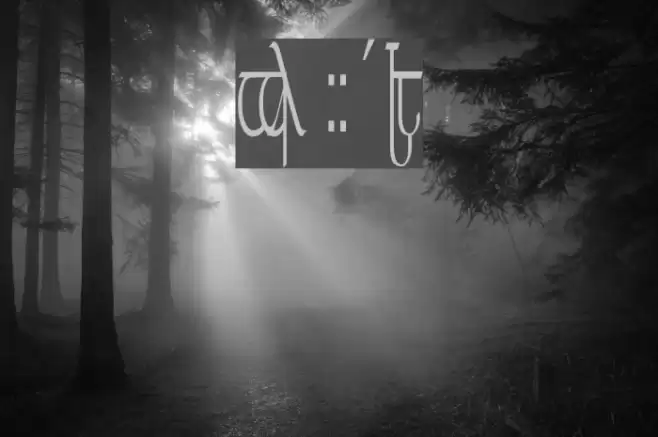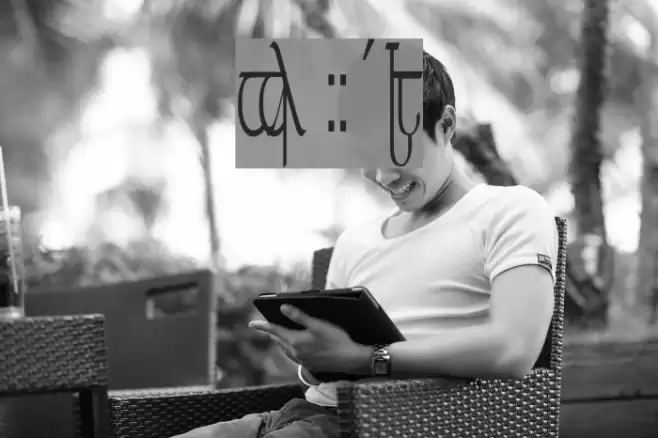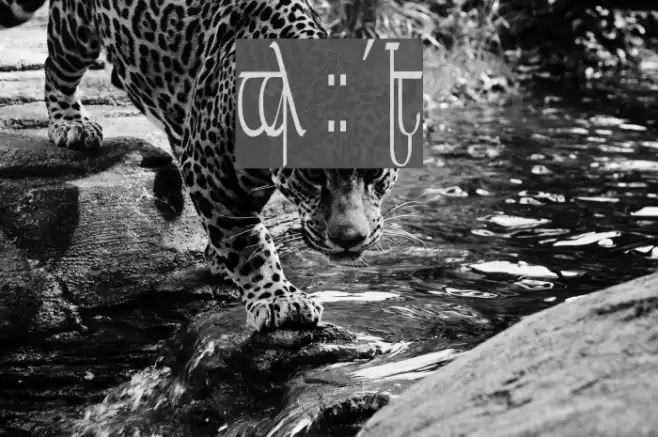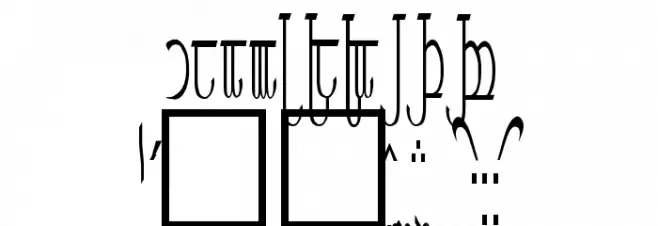
This font is a decorative script inspired by the Tengwar script from J.R.R. Tolkien's Middle-earth legendarium. It features elegant, flowing lines with a distinct Elvish aesthetic. The characters are characterized by their tall, narrow forms and intricate curves, giving them a mystical and ancient appearance. The font includes a variety of unique symbols and diacritics, enhancing its fantasy theme. It is not designed for traditional Latin alphabet use, but rather for creative projects that require a touch of fantasy or otherworldly charm.
A decorative script inspired by Tolkien's Tengwar, featuring elegant, flowing lines and a mystical aesthetic from Dingbats fonts.
- Proposed Projects: Ideal for fantasy-themed projects, book covers, game design, and creative artwork that requires an Elvish or mystical touch.
- Overall Style: Fantasy, Mystical, Decorative
- Use Case: Logos, Decorative text, Fantasy-themed projects